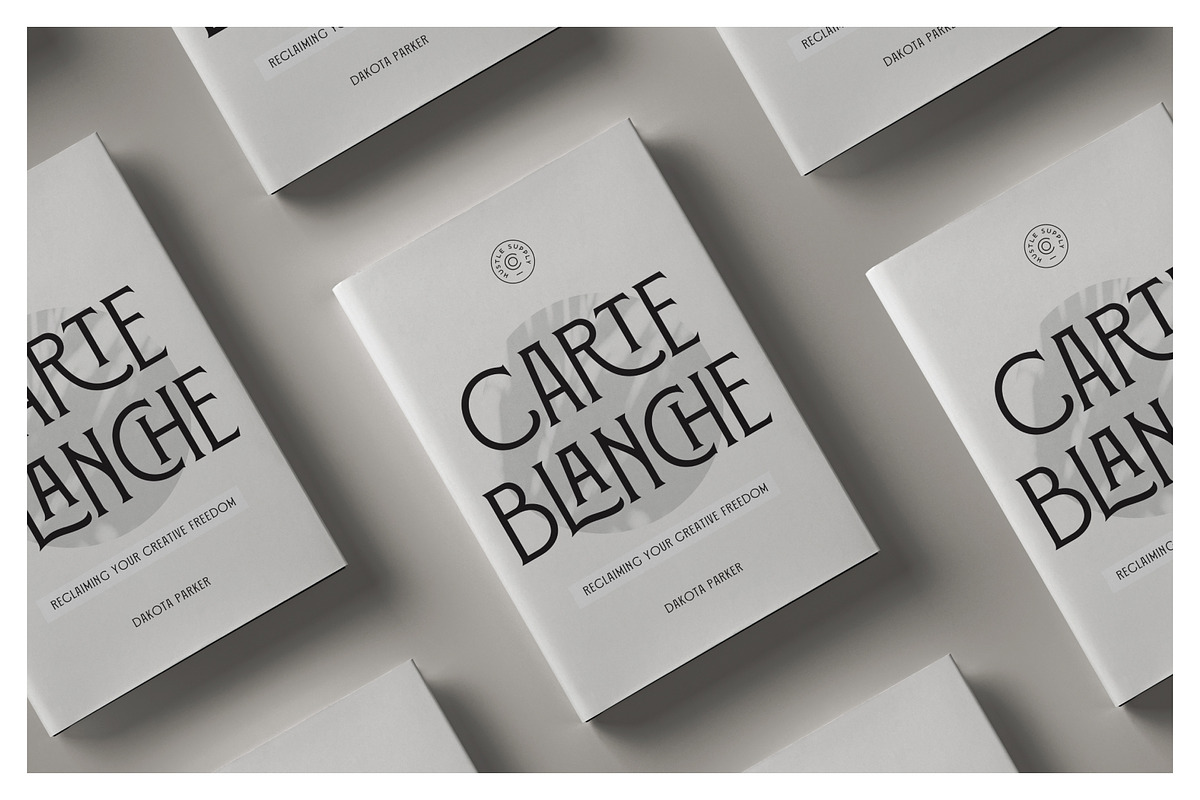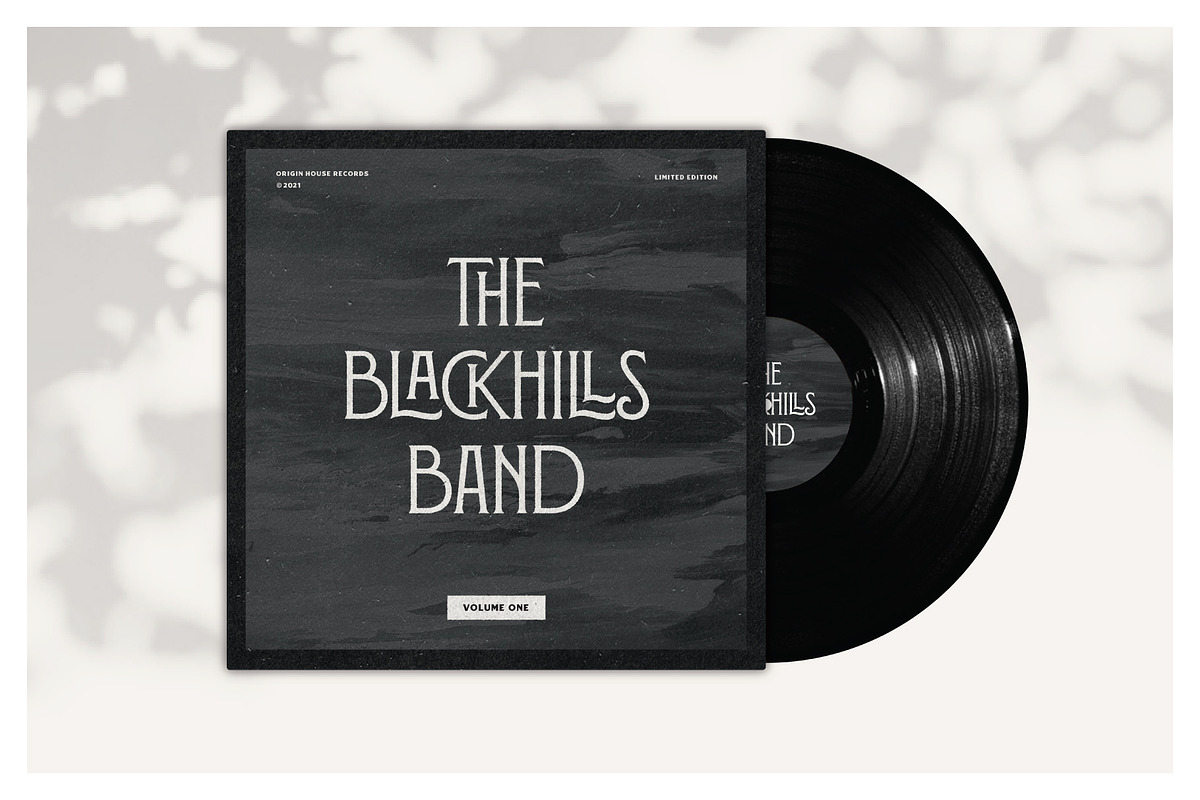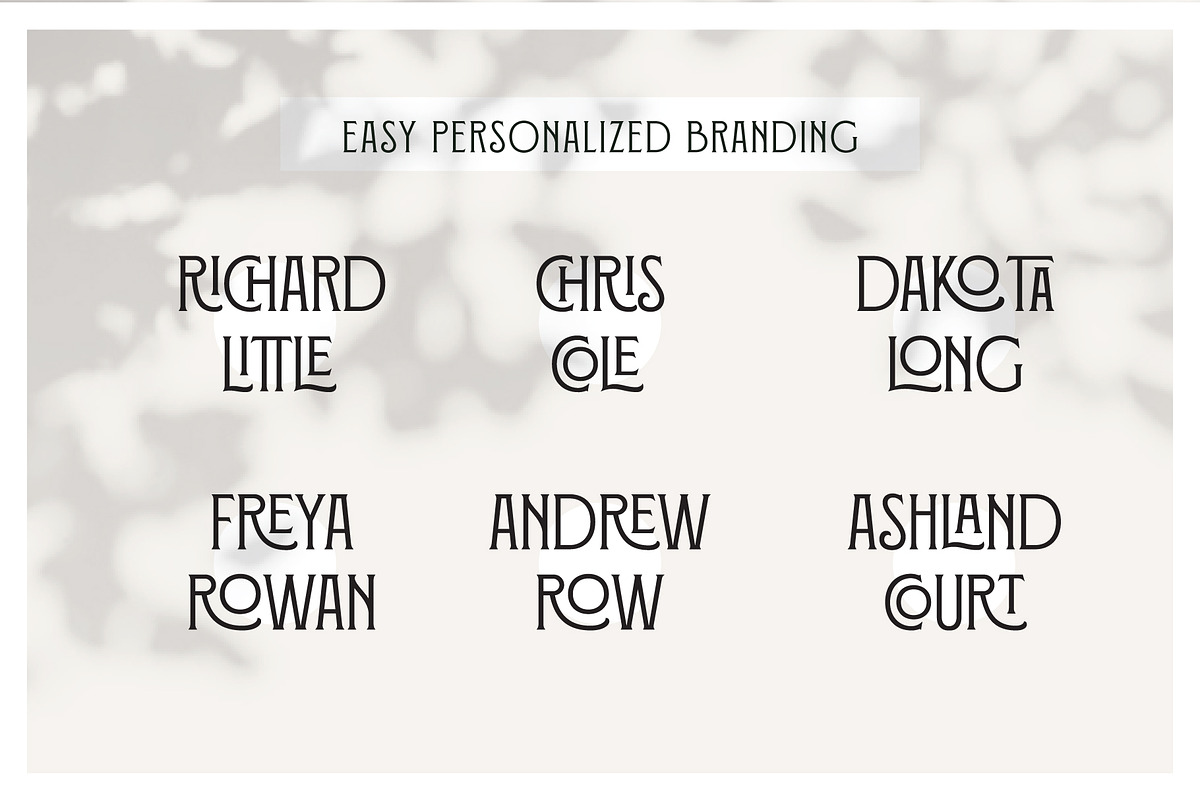
Hatchet & Arrow | 58 Ligatures
Hatchet & Arrow
Hatchet & Arrow is a condensed typeface with Small Caps. There are 58 ligatures included, making this a very versatile and customizable typeface to own. Create interesting and creative logos, headlines, book covers & more! Check out the full glyph set image to see everything that's included!
- 58 Ligatures & More!
Designed by Jeremy Vessey & Umar Al Farouq